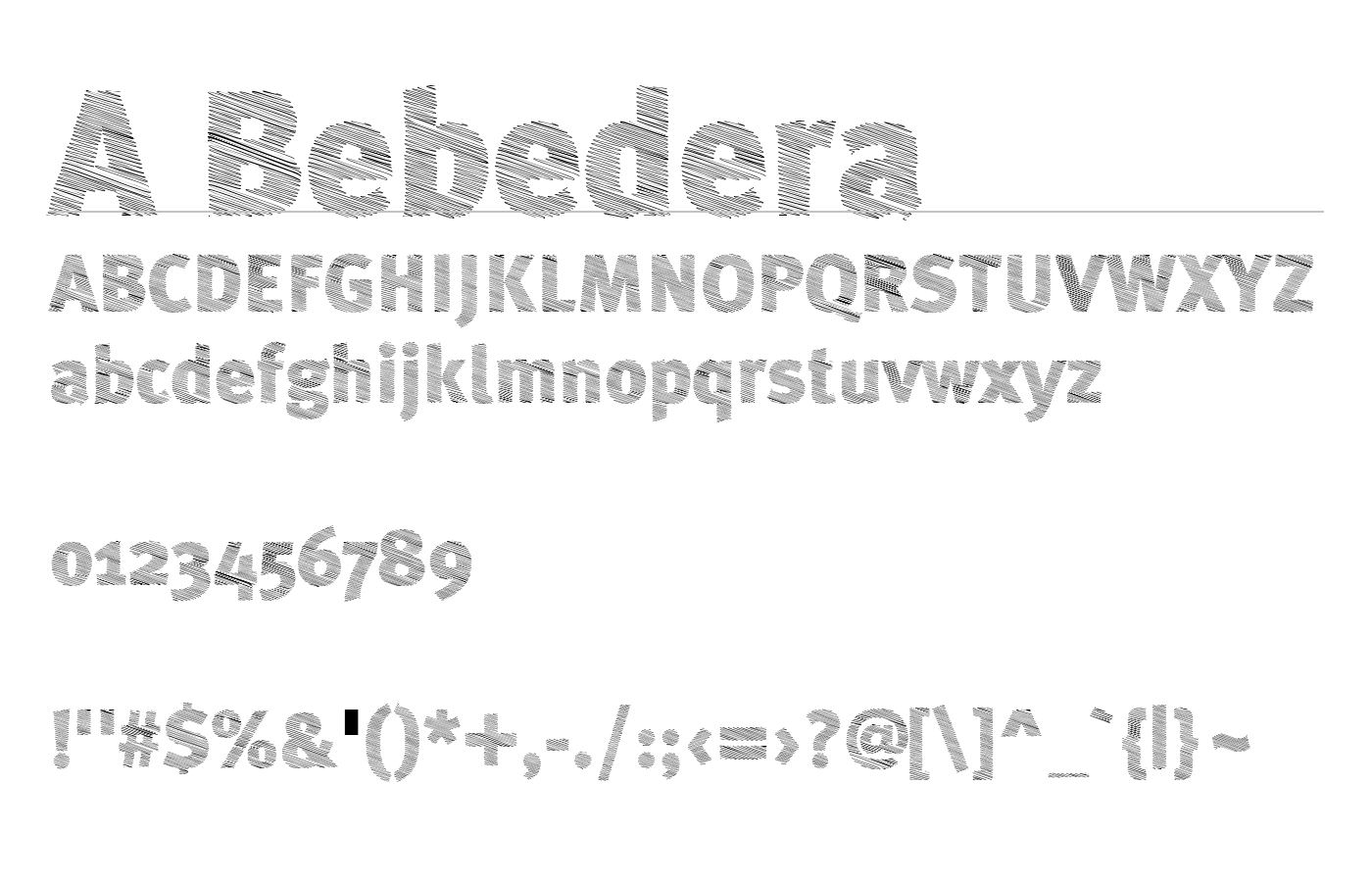
A Bebedera is a bold, sans serif font with a playful and dynamic character, distinguished by its diagonal hatch shading that adds texture and movement to each letter. It features a strong, slightly condensed structure with a moderate x-height, making it eye-catching and suitable for bold headlines or creative branding. This font works well for designs seeking a lively, informal vibe with a hint of handcrafted charm, ideal for posters, logos, and expressive display uses.
A Bebedera Font
About A Bebedera Font